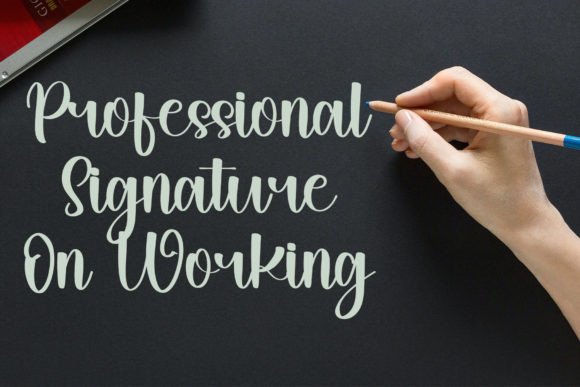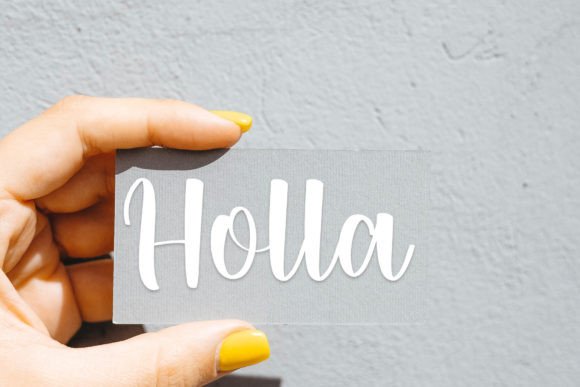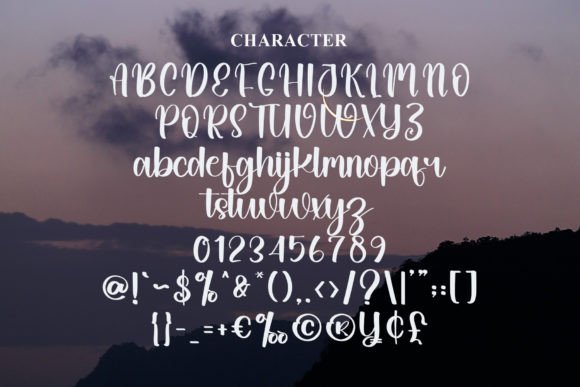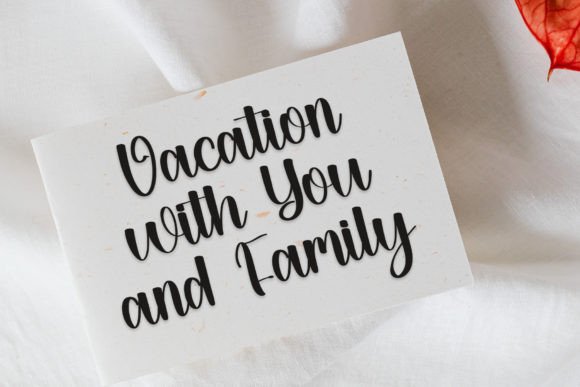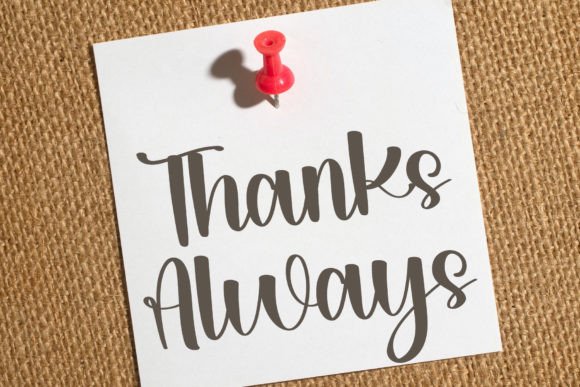
Discover the Perfect Blend of Casual Charm and Versatility
There’s a moment we all experience as designers – when we’re brainstorming ideas, and suddenly, the perfect font pops into our minds. It’s like a spark of creativity that sets our projects ablaze. For many, that font is the Blessful Font, a unique handwritten font that’s been carefully handcrafted to become a true favorite. Its casual charm makes it appear wonderfully down-to-earth, readable, and incredibly versatile.
Whether you’re a seasoned designer or just starting out, the Blessful Font is a valuable addition to your toolkit. Its adaptability shines through in any context – from busy backgrounds to standalone headlines – making it an excellent choice for designers looking to add a personal touch to their work.
Blessful Font Key Features
- Font Size: The font family includes 4 font weights (Thin, Light, Regular, and Bold), providing flexibility for various design and typography needs.
- Unique Characteristics: The font features a unique blend of modern and elegant design elements, including subtle flourishes and ornate details, setting it apart from more traditional font styles.
Blessful Font Review
Overall, I was excited to dive into the Blessful Font, but my experience was a mixed bag. Let’s start with the good stuff: ✨ The font’s sleek and modern design is a great fit for any contemporary project. The subtle curves and rounded edges give it a friendly, approachable feel that’s perfect for digital products and websites.
Here are some specific things that I think work well in Blessful Font:
- ✨ Clean and simple design: The font is easy to read, even at smaller font sizes.
- ✨ Great for digital products: The modern design makes it perfect for mobile apps, websites, and other digital platforms.
- ✨ Highly customizable: The font offers a range of styles and weights, making it easy to tailor to your specific design needs.
However, I did encounter some limitations: ⚠️
- ⚠️ Limited versatility: While the font works well for digital projects, it may not be the best choice for print materials or more traditional designs.
- ⚠️ Not ideal for small text: While the font is clean and simple, it may not be the best choice for small text or body copy, as it can become difficult to read.
Overall, I’d say that Blessful Font is a solid choice for designers looking for a modern, digital-focused font. While it may not be the best fit for every project, it’s definitely worth considering for digital products and websites.
Blessful Font: A Practical Application Guide
Experiment with different font sizes, colors, and styles to create a unique look. Use the Blessful Font in combination with other fonts to create a visually appealing design. Consider using the Blessful Font for headings and titles to add emphasis.
The Blessful Font is ideal for use in branding, logos, and typography-based designs. It can also be used in digital products, such as mobile apps and websites, to create a cohesive and professional look.